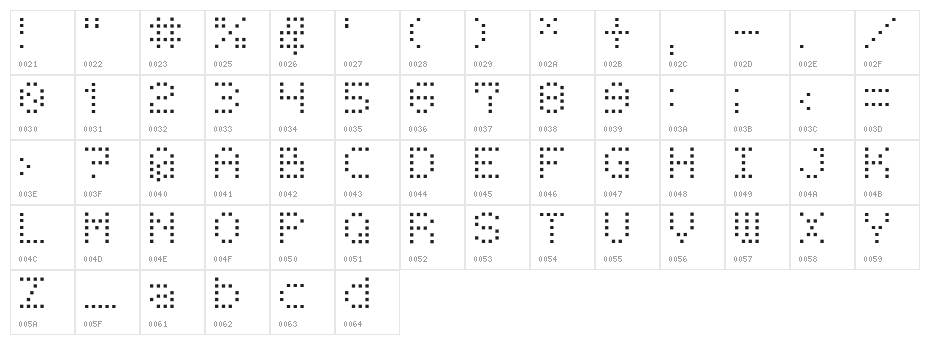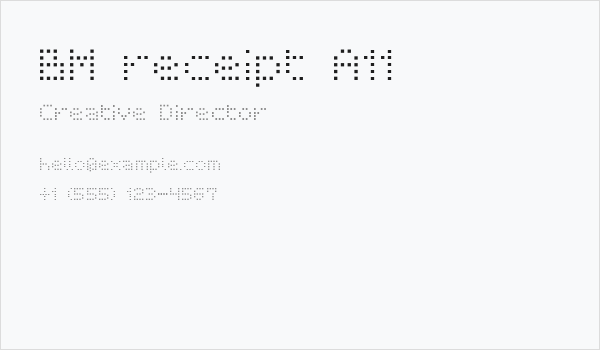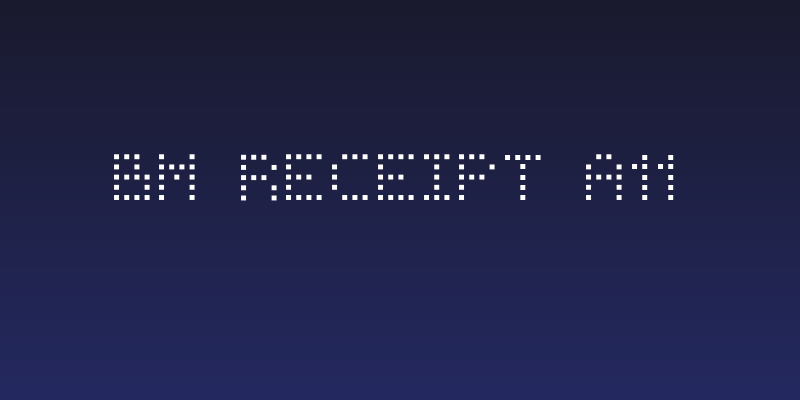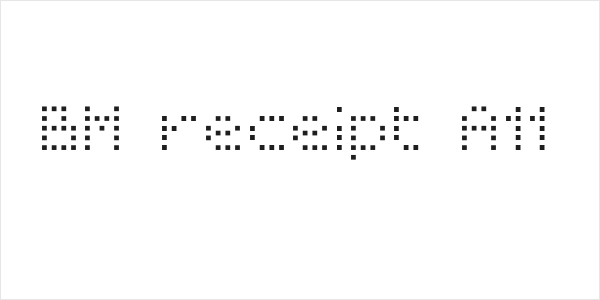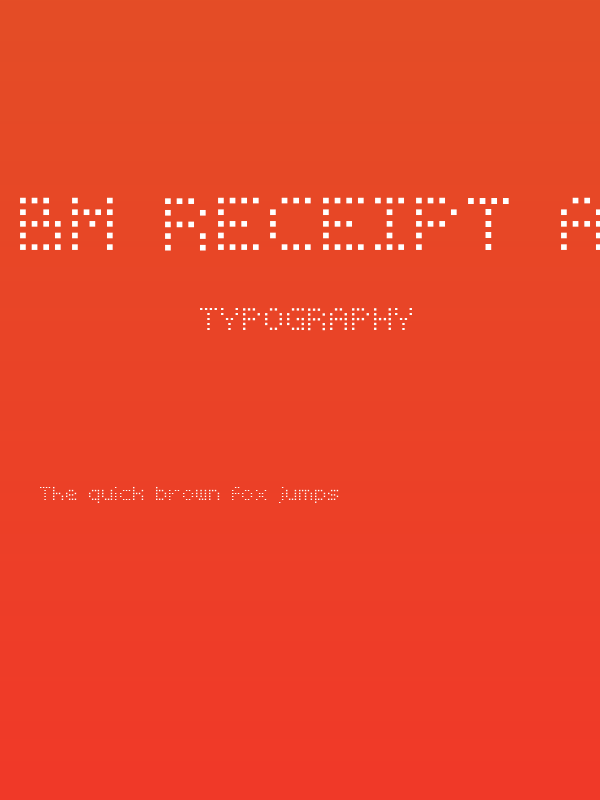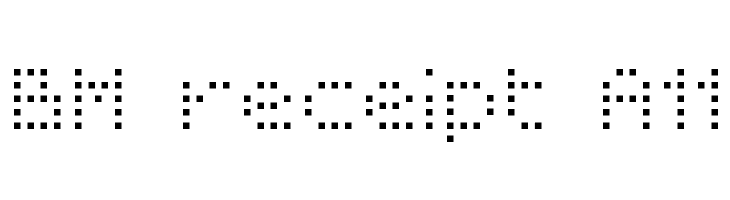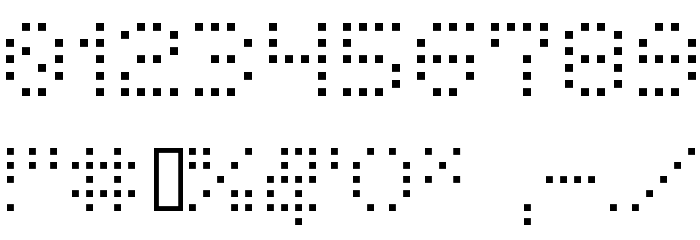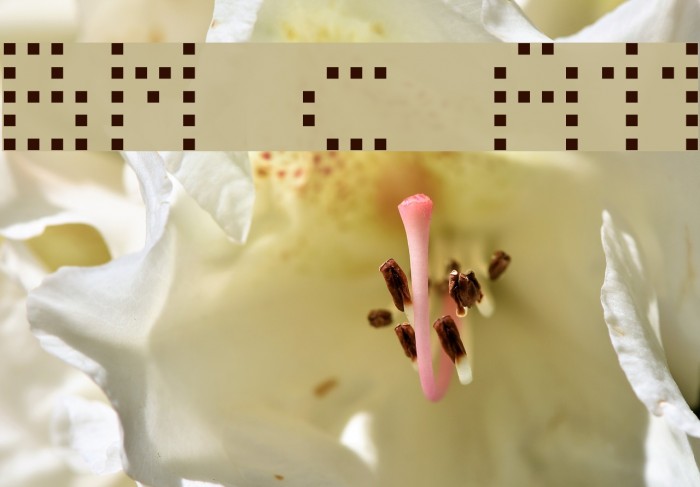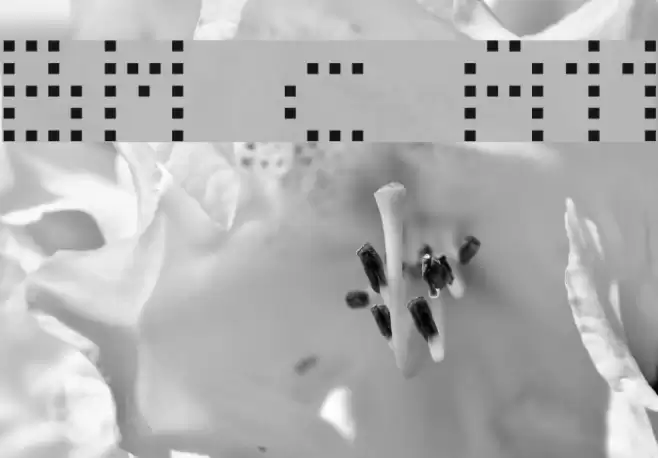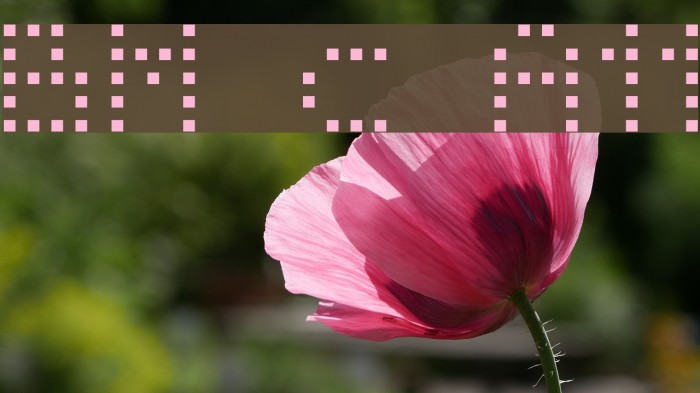
BM receipt A11 Font
BM receipt A11 Description
This font features a unique dot matrix style, reminiscent of old digital displays and receipt printers. Each character is composed of a grid of dots, creating a pixelated effect that is both retro and modern. The uppercase and lowercase letters maintain a consistent height, with clear differentiation between the two. Numbers and special characters follow the same dot pattern, ensuring uniformity across the font. The design is minimalistic yet distinctive, making it suitable for projects that require a digital or technological aesthetic.
| Overall Style | Retro, Digital |
| Use Case | Logos, Headlines, Digital displays |
| Proposed Projects | Ideal for digital-themed designs, retro-style posters, tech-related branding, and any project needing a vintage digital aesthetic. |